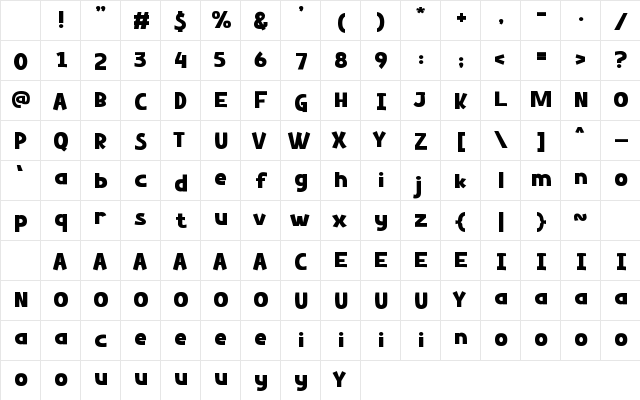
Complete Tropical Jungle Regular glyph index. Displaying only characters natively supported by Tropical Jungle Regular font.
Tropical Jungle is a composed and adaptable typeface that performs quietly and consistently across a wide range of design contexts.
Pro Tip: Use Tropical Jungle in both headline and body roles to test its range before committing to a single application.